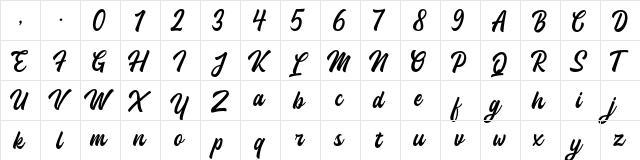
Halaney Demo Regular
Design Context for Halaney Demo Typeface
Halaney Demo is a composed and adaptable typeface that performs quietly and consistently across a wide range of design contexts.